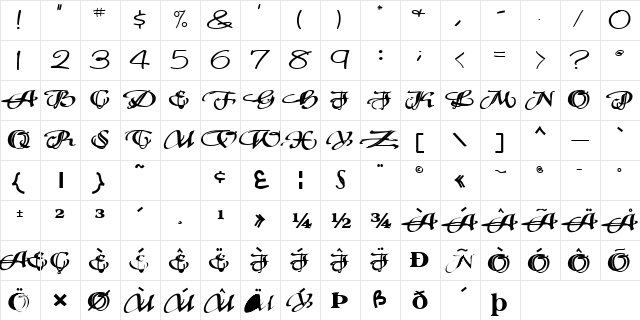
FreshCapFont120 Bold
Design Context for FreshCapFont120 Typeface
FreshCapFont120 is a composed and adaptable typeface that performs quietly and consistently across a wide range of design contexts. The heavy weight commands attention and anchors typographic hierarchies.